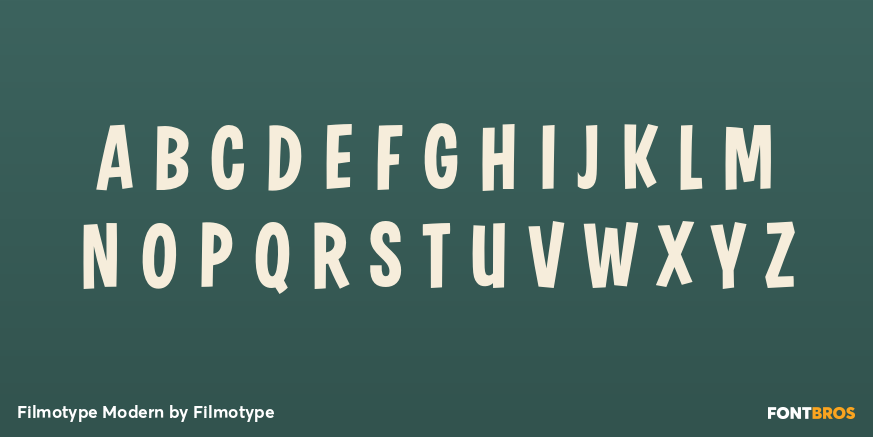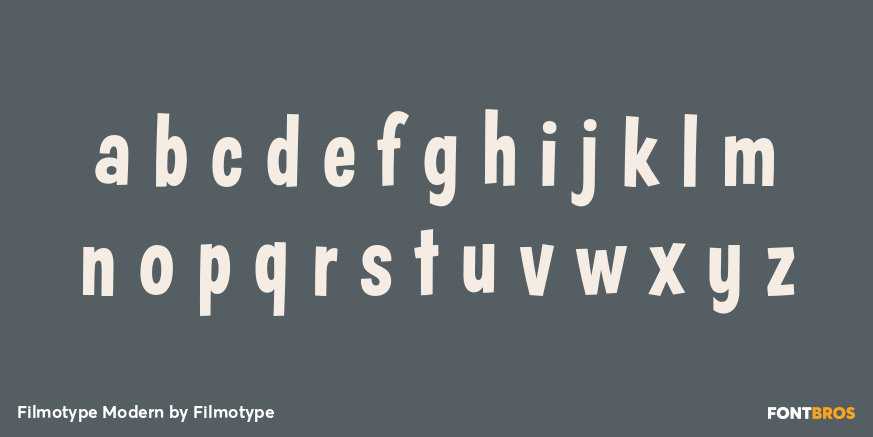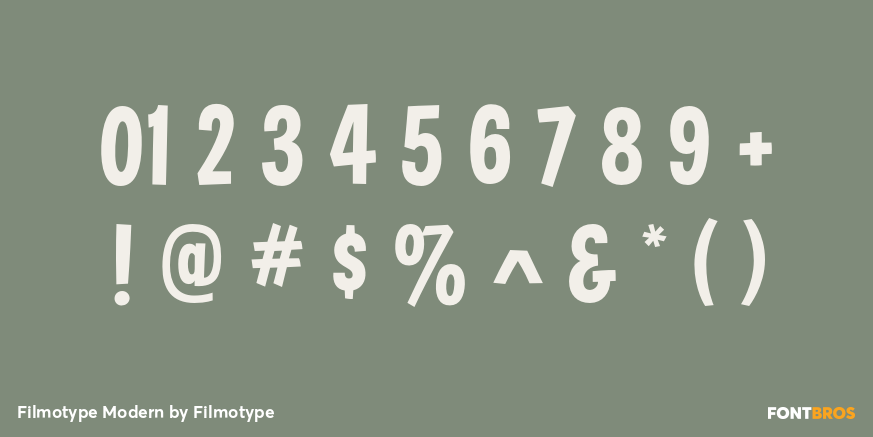
Filmotype Modern
Font Family by Filmotype
Filmotype Modern is a wonderful condensed bouncy sans serif was originally introduced in the early 1950s and captures the essence of mid-century casual playfulness.
Filmotype Modern was developed from the original font filmstrips and includes a full international character compliment, automatic ligature combinations, ordinals, fractionals, and a host of alternate characters in dynamic OpenType format.